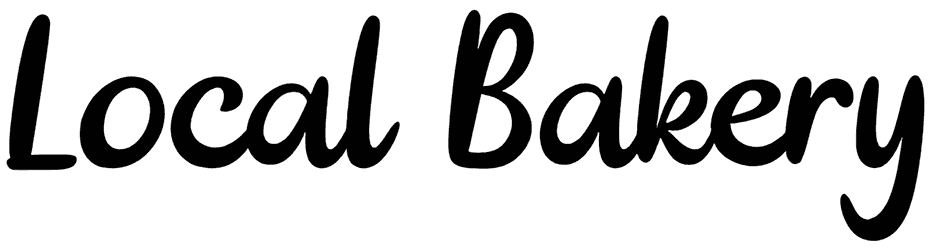
Local Bakery Font
Goochy goochy goo! Time to move away from the ordinary or formal fonts and to meet a script font set with quaint and casual vibes. As its name suggests that it fits local store logos, bread, sweets, and candy packaging.
Local Bakery font is a perfect bakery font without problems; the simplicity of its lines creates an atmosphere of friendliness and calmness when reading it.